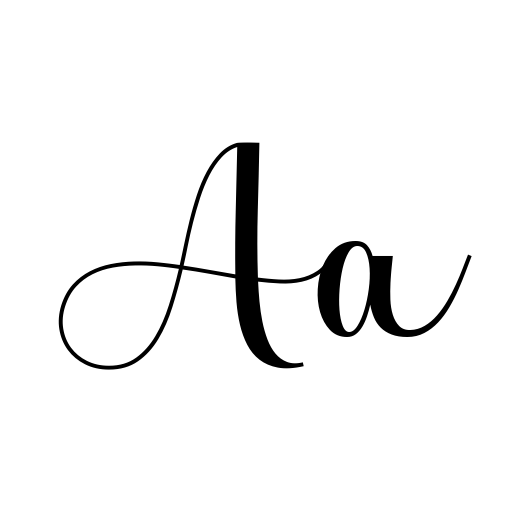
Babyeaster is a delicate, elegant script font with a light weight and tall, flowing letterforms that give it a graceful, handwritten feel. Its fine lines and whimsical swashes make it perfect for feminine, romantic, or creative projects such as wedding invitations, branding, and stylish logos. This font works best in decorative uses where an airy, sophisticated look is desired.
Babyeaster Font
About Babyeaster Font